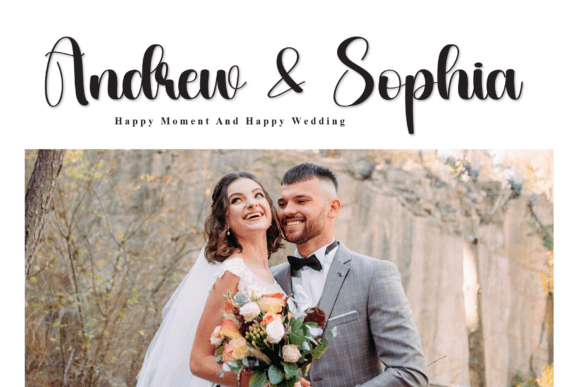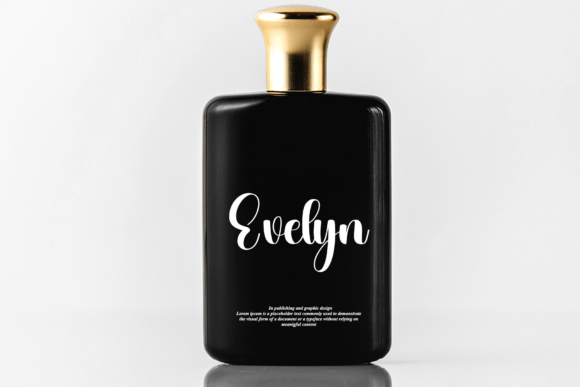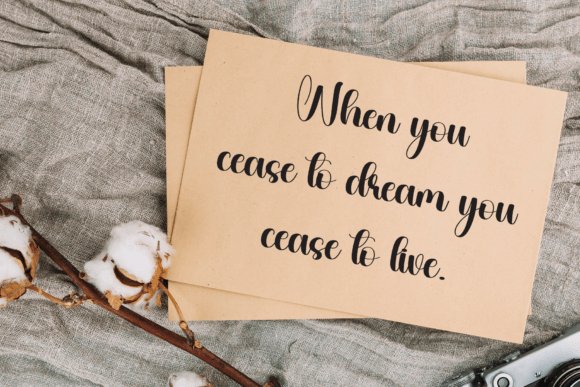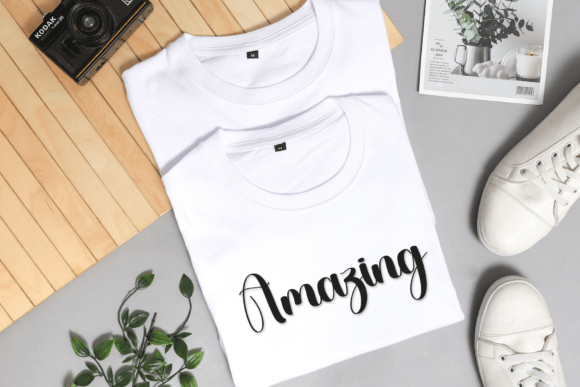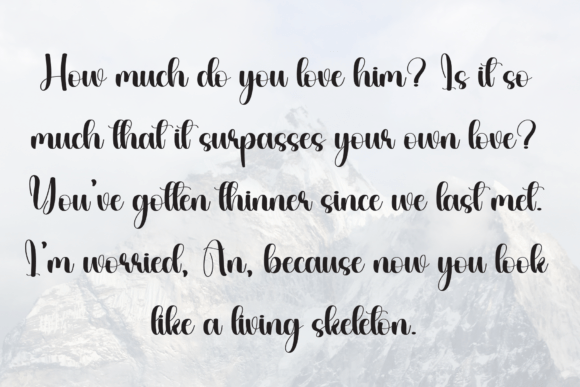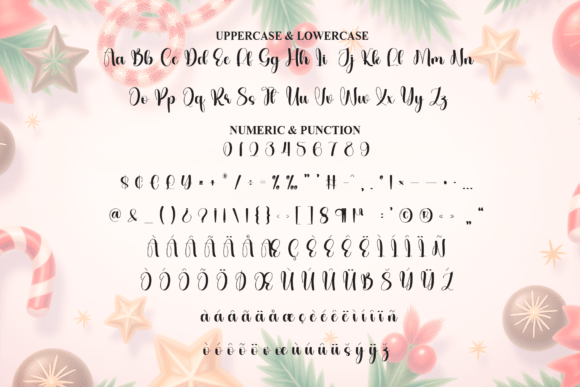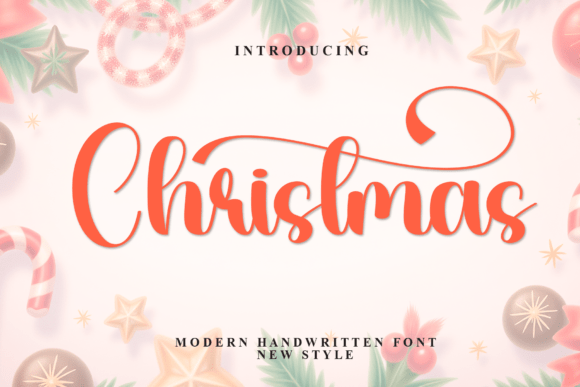
Introducing the Enchanting Christmas Font: Adding a Touch of Whimsy to Your Designs
Are you looking for a font that can add a dash of playfulness and charm to your designs? Look no further than the Christmas Font, a delightful handwritten typeface that is perfect for creating eye-catching wedding invites, personalized greeting cards, and other designs that require a touch of whimsy. In this article, we’ll take a closer look at the features and benefits of this enchanting font and explore how it can elevate your designs to the next level.
A Perfect Blend of Casual and Lively
The Christmas Font is a beautiful handwritten typeface that strikes the perfect balance between casual and lively. Its adorable yet dynamic traits make it an ideal choice for designers and crafters who want to add a personal touch to their work. Whether you’re creating wedding stationery, holiday cards, or social media graphics, this font is sure to impress.
One of the standout features of the Christmas Font is its unique and charming aesthetic. The font’s handwritten style gives it a warm and inviting feel, making it perfect for designs that require a personal touch. The letters are carefully crafted to create a sense of movement and fluidity, giving the font a lively and dynamic feel.
The Christmas Font is incredibly versatile and can be used for a wide range of design projects. Here are just a few ideas to get you started:
- Wedding invites and stationery: Add a touch of romance and whimsy to your wedding designs with this enchanting font.
- Personalized greeting cards: Create one-of-a-kind greeting cards for special occasions like Christmas, birthdays, and anniversaries.
- Social media graphics: Use the Christmas Font to create eye-catching social media graphics that are sure to grab attention.
- Holiday crafts: Add a personal touch to your holiday crafts, such as scrapbooking, card making, and DIY gift tags.
Why Choose the Christmas Font?
So, why choose the Christmas Font for your design projects? Here are just a few reasons:
- Unique and charming aesthetic: The Christmas Font has a unique and charming aesthetic that is sure to make your designs stand out.
- Highly versatile: The font can be used for a wide range of design projects, from wedding stationery to social media graphics.
- Easy to read: Despite its playful and whimsical nature, the Christmas Font is easy to read and understand.
- Perfect for personal projects: The font’s personal and handwritten style makes it perfect for personal projects and designs that require a touch of warmth and personality.
Tips for Using the Christmas Font
Here are a few tips for using the Christmas Font in your design projects:
- Pair with complementary fonts: Pair the Christmas Font with complementary fonts to create a visually appealing and harmonious design.
- Experiment with colors: Experiment with different colors and textures to add depth and interest to your designs.
- Use for headlines and titles: Use the Christmas Font for headlines and titles to add a touch of whimsy and personality to your designs.
In conclusion, the Christmas Font is a delightful handwritten typeface that is perfect for adding a touch of whimsy and charm to your designs. Its unique and charming aesthetic, highly versatile nature, and ease of use make it an ideal choice for designers and crafters. Whether you’re creating wedding stationery, holiday cards, or social media graphics, this font is sure to impress. So why not give it a try and see how it can elevate your designs to the next level?